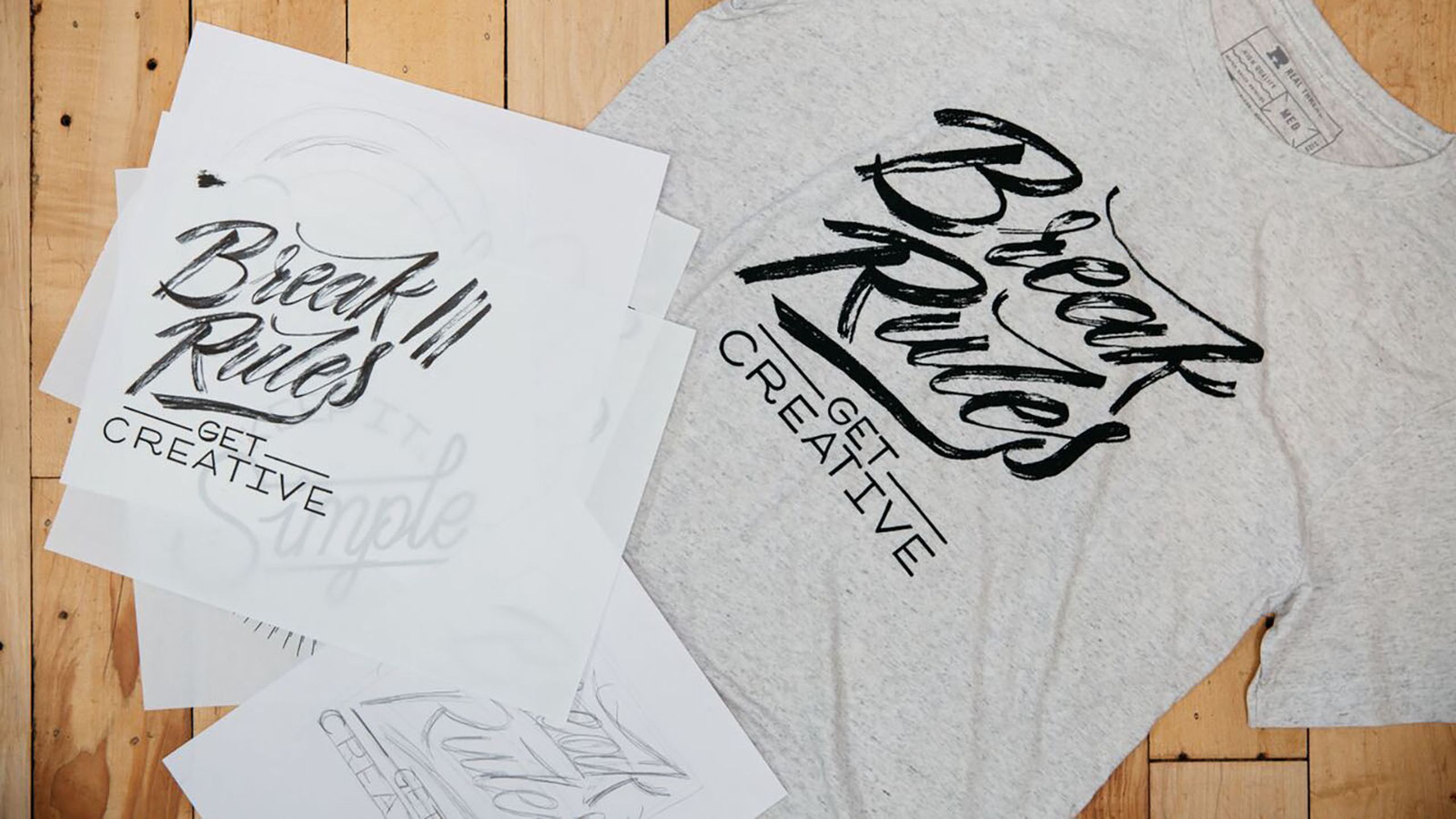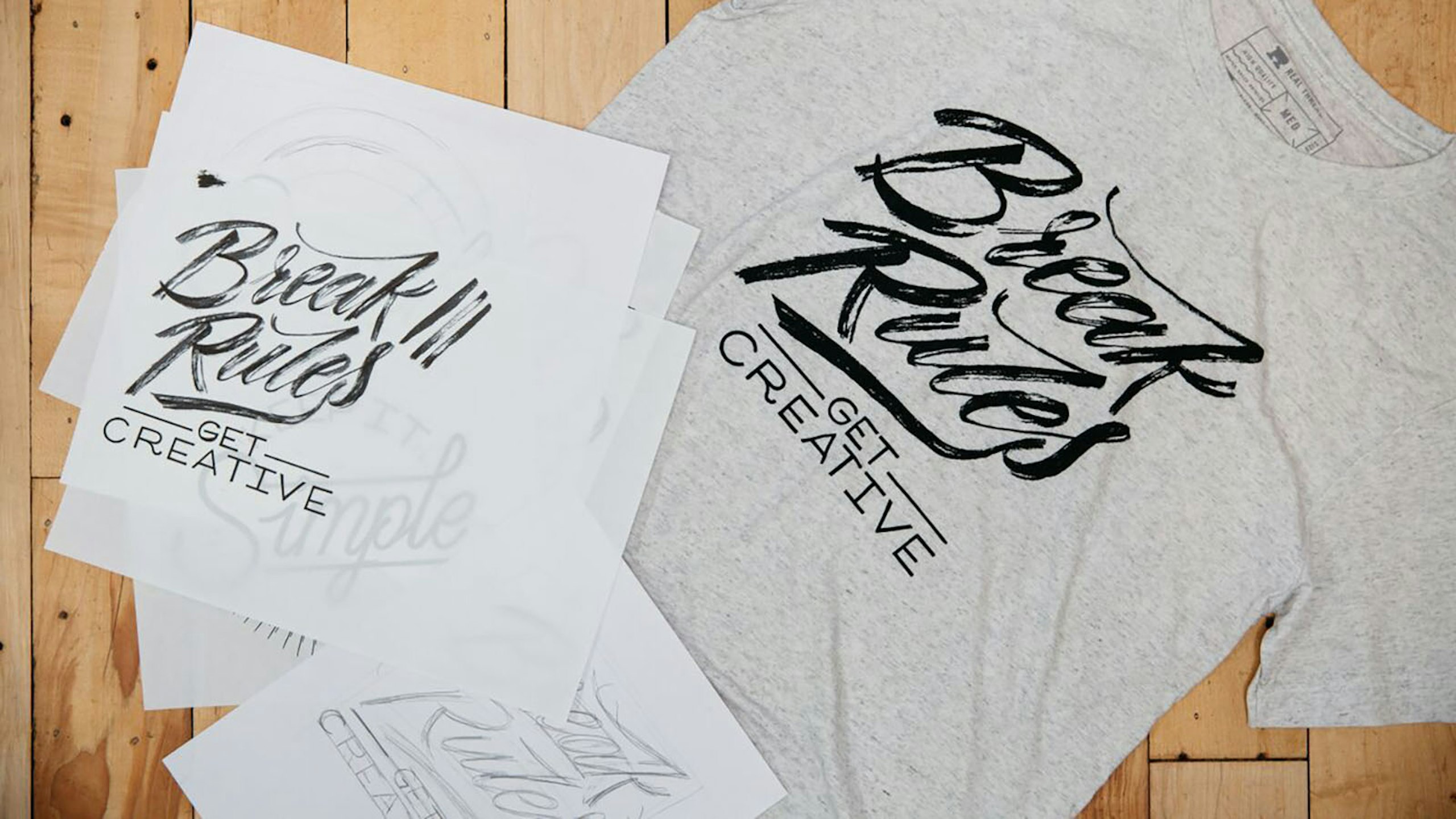
When designing t-shirts, selecting a font to use in your design can be the most important part. Whether you’re using a typeface as the focal point of a design, or it’s supplementing something else, the font you choose will have a major impact on how your design looks and feels.
That's why we put together a video guide for you to get an overview of fonts, how they work, and tips for implementing them in your t-shirt designs.